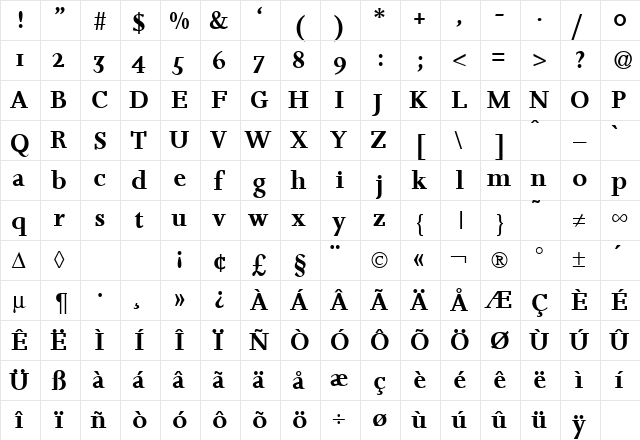
JosieDemi Regular
Design Context for JosieDemi Typeface
JosieDemi takes a measured approach to typography — its balanced proportions and neutral character make it a reliable workhorse for both digital and print work.